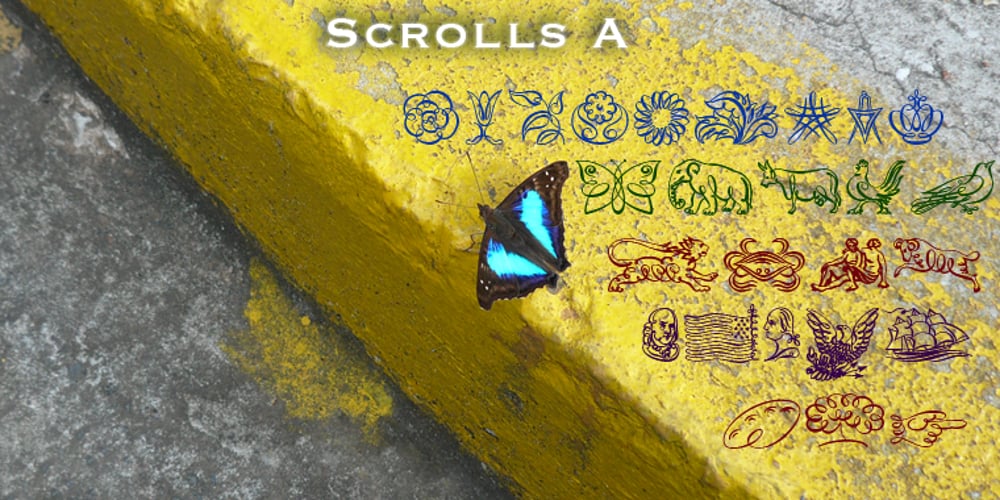
Scrolls A
Scrolls A font
Scrolls A Font Family was designed by Gert Wiescher and published by Wiescher Design. Scrolls A contains 1 styles and family package options. Scrolls A are a set of pictorial scrolls like signs of the zodiac, animals, dishes, flowers, symbols, decorative and Americana. They are beginning of last century American. Your I-found-them-somewhere type-designer, Gert Wiescher